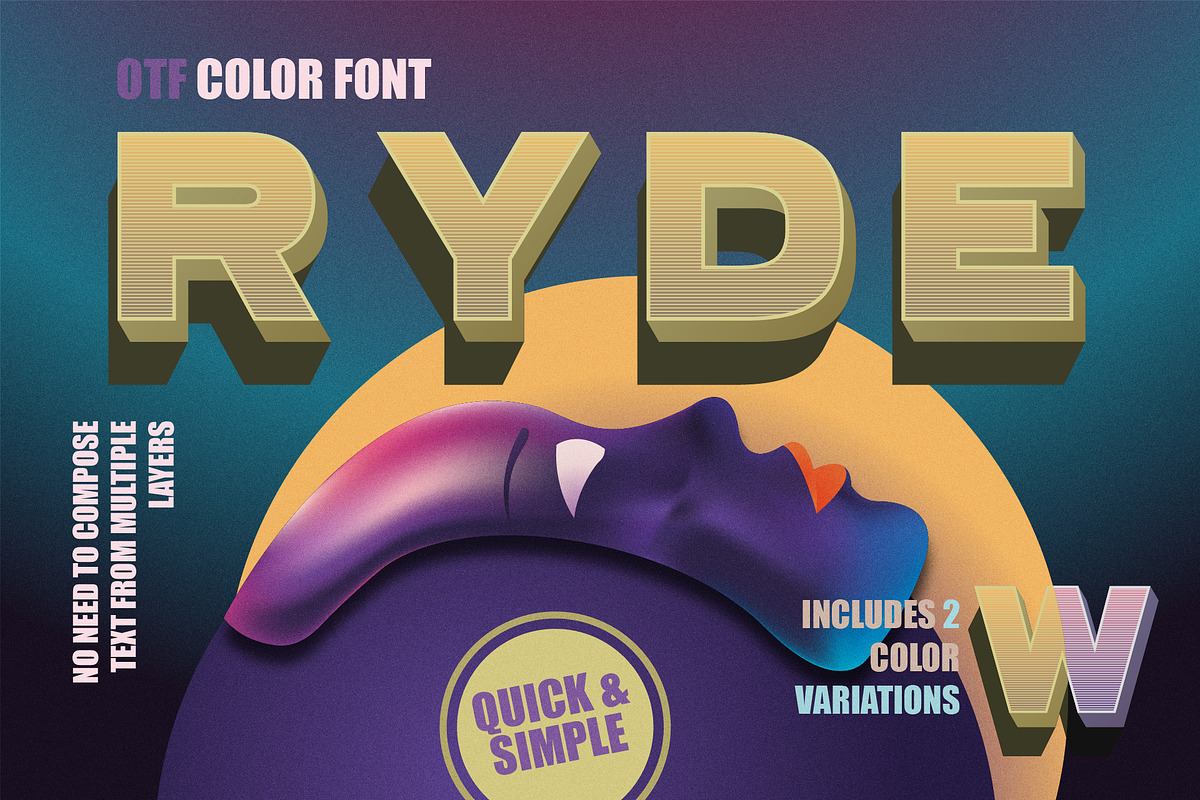
Ryde Sans Serif Color Font Free Download is a modern, vibrant typeface that combines the clean elegance of a sans serif with bold color layers. This color font is perfect for eye-catching headlines, posters, logos, social media graphics, and packaging designs that need to stand out with style.
Its dynamic structure allows you to create colorful, layered typography without the need for additional graphic elements, making it ideal for contemporary branding and design. Whether you're creating for digital or print platforms, Ryde Sans Serif Color Font Free Download delivers a strong visual impact that pops with color.